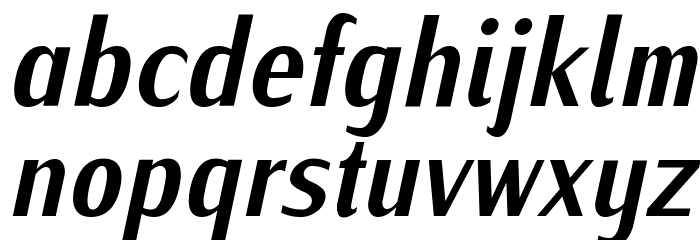
IwonaCond-BoldItalic Font
This font exhibits a modern and sleek design with a condensed structure, making it ideal for space-saving applications. The italic style adds a dynamic and elegant touch, enhancing its visual appeal. The bold weight provides a strong presence, ensuring readability even at smaller sizes. The characters are well-defined with a slight slant, contributing to its contemporary aesthetic. The spacing between characters is tight, which complements its condensed nature. The font maintains a medium contrast in stroke thickness, balancing between boldness and subtlety. Its overall style is both professional and versatile, suitable for various design contexts.
A modern, condensed, bold italic font with tight spacing and medium contrast.
- Proposed Projects: Ideal for headlines, logos, branding materials, and editorial design where a modern and dynamic look is desired.